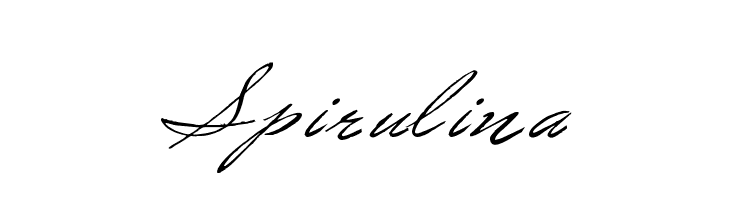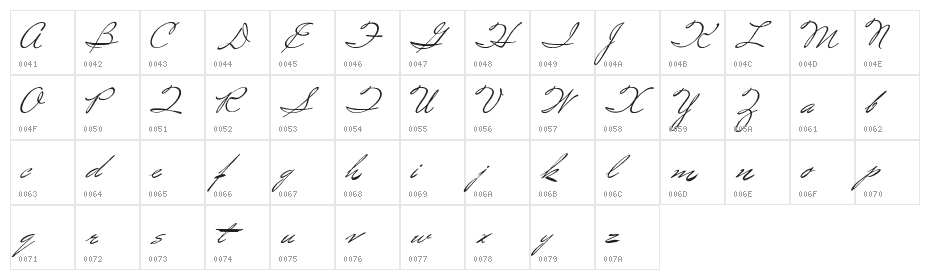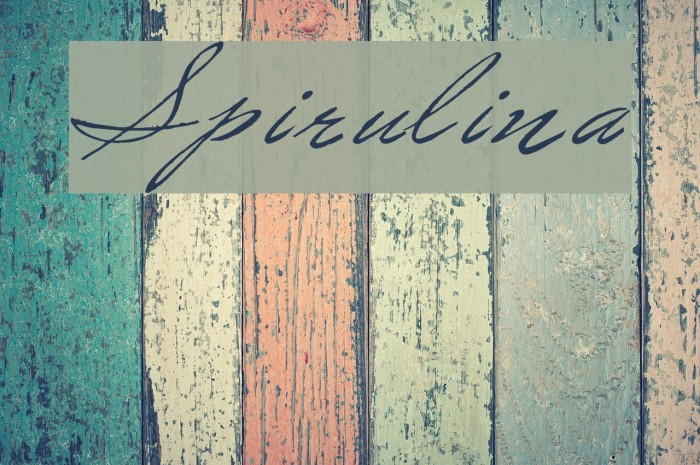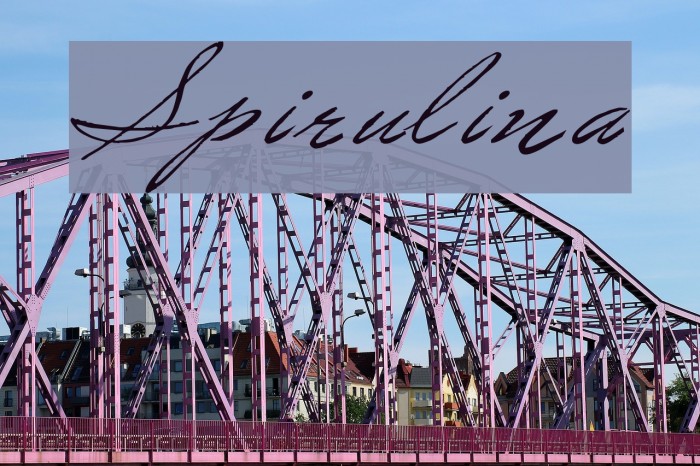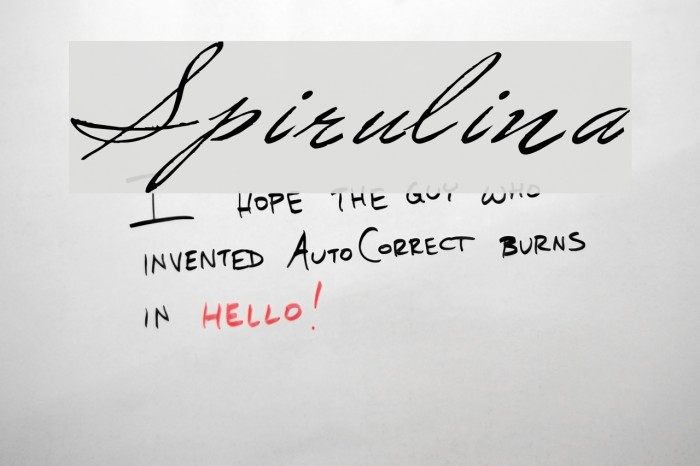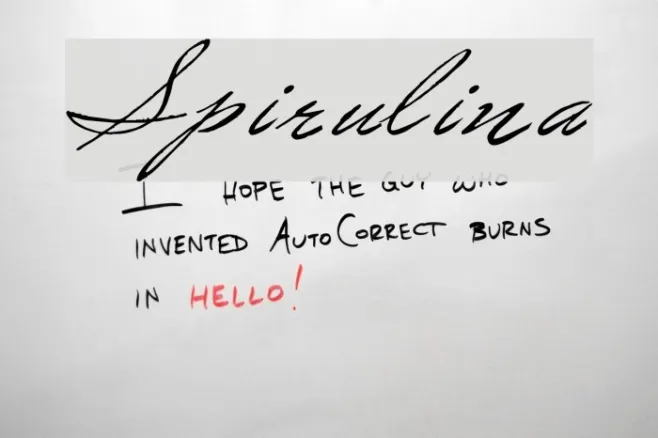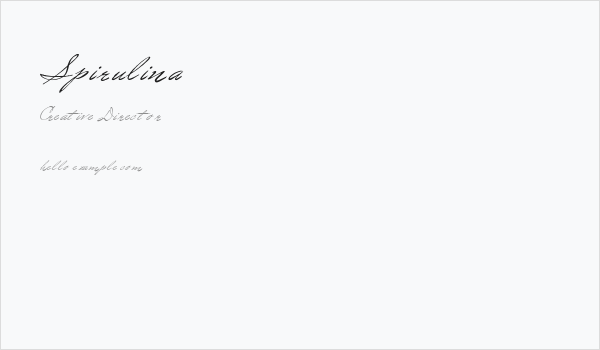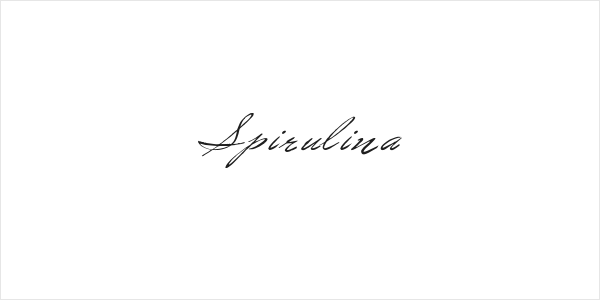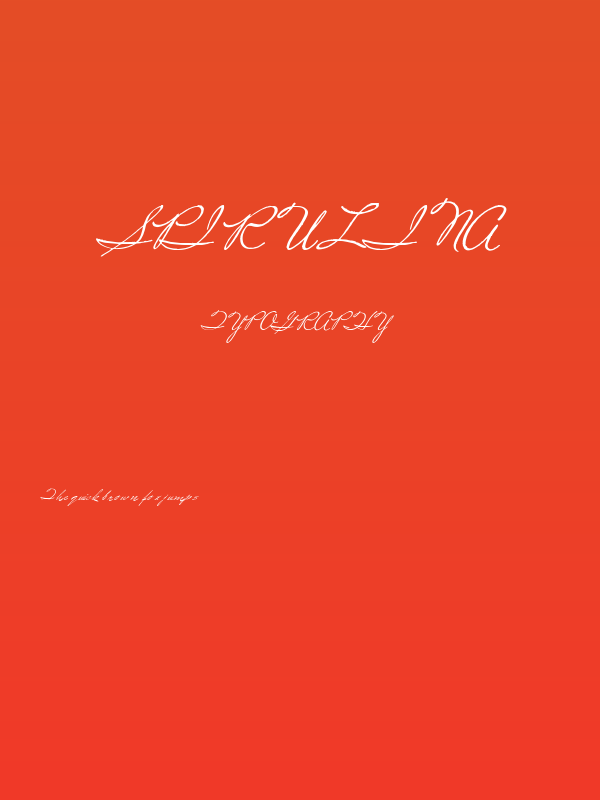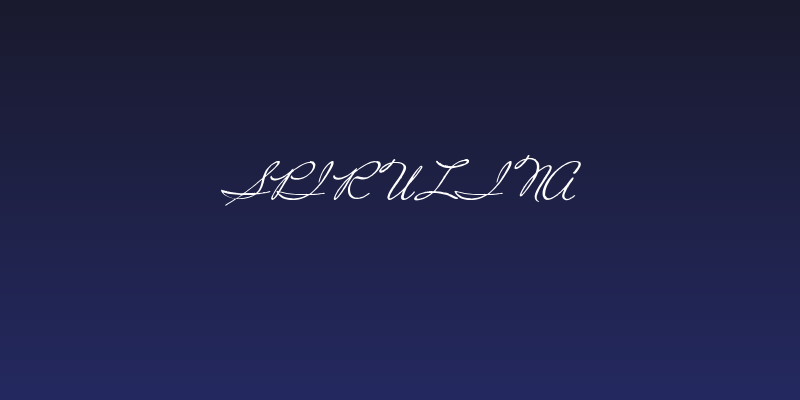
Spirulina Font
Spirulina Description
This font showcases an elegant and flowing script style, characterized by its cursive, handwritten appearance. The letters are interconnected, creating a seamless and fluid look. The strokes are varied, with some letters featuring thin, delicate lines and others displaying thicker, more pronounced curves. This contrast adds a dynamic and artistic flair to the overall design. The uppercase letters are ornate and slightly larger, while the lowercase letters maintain a consistent size, enhancing readability. The font exudes a sense of sophistication and grace, making it suitable for formal and decorative applications.